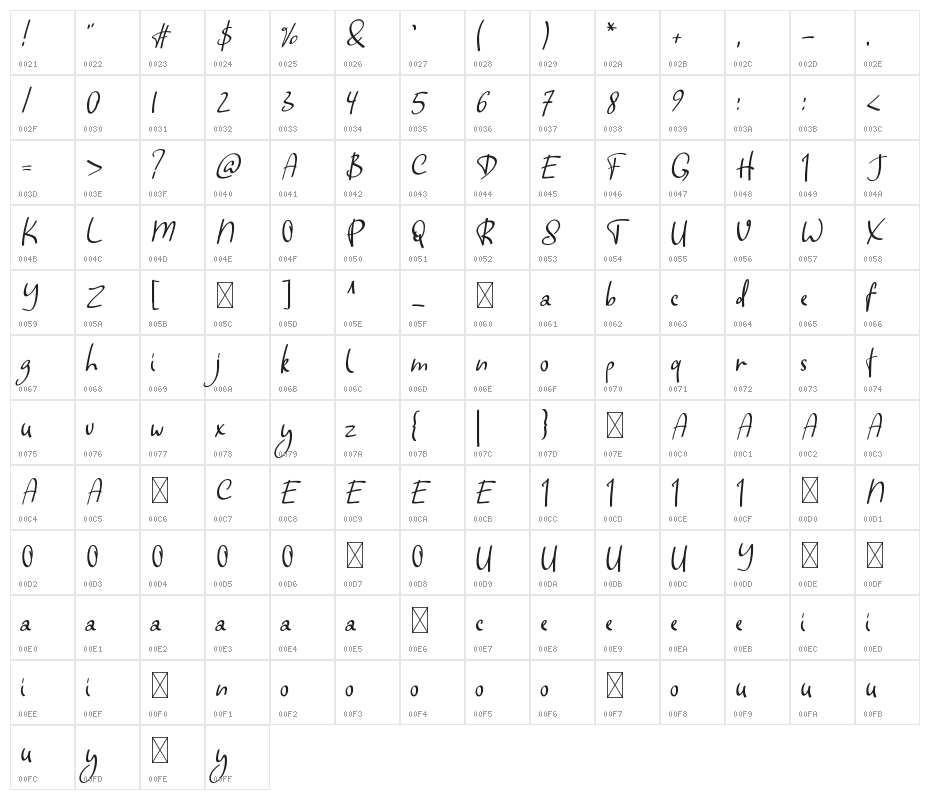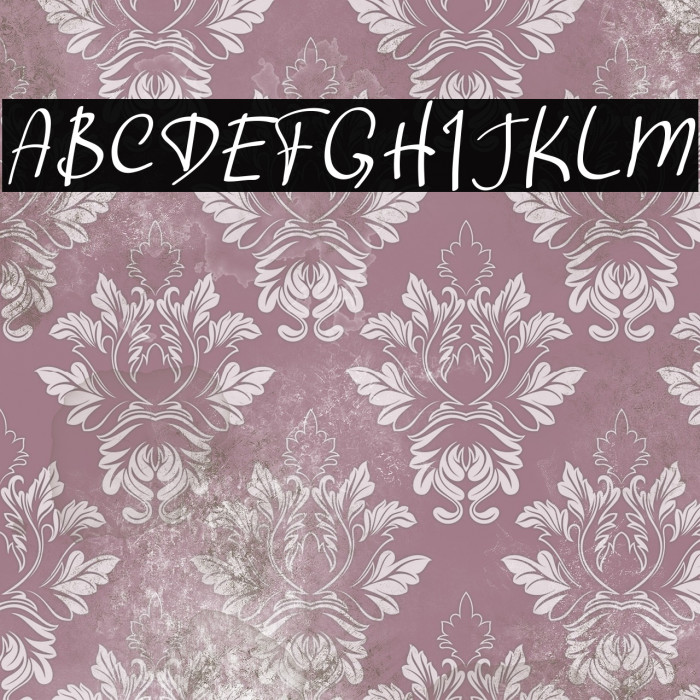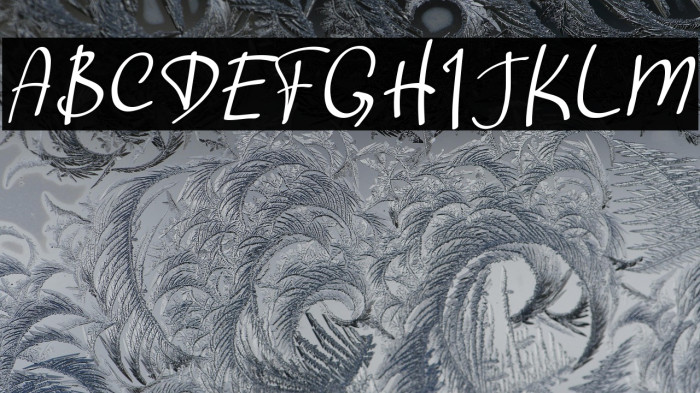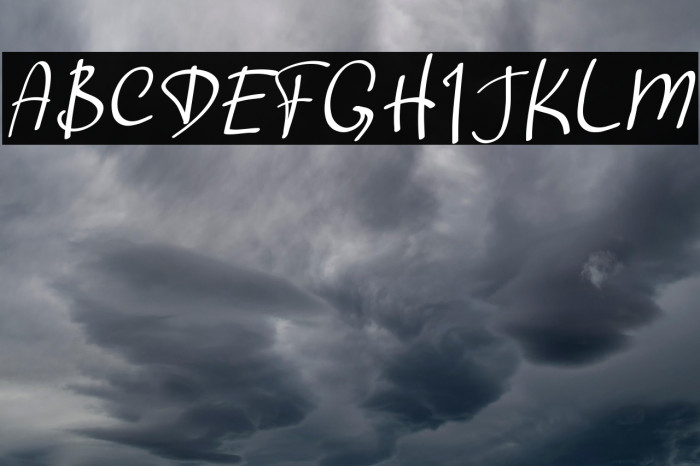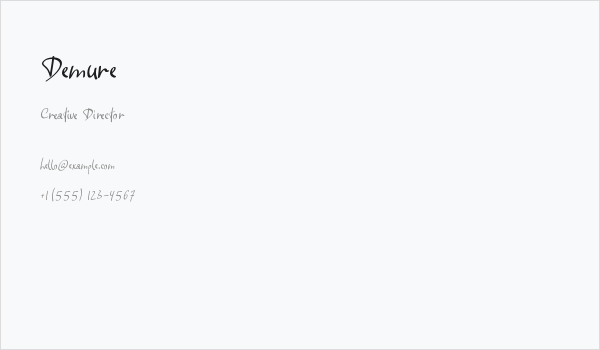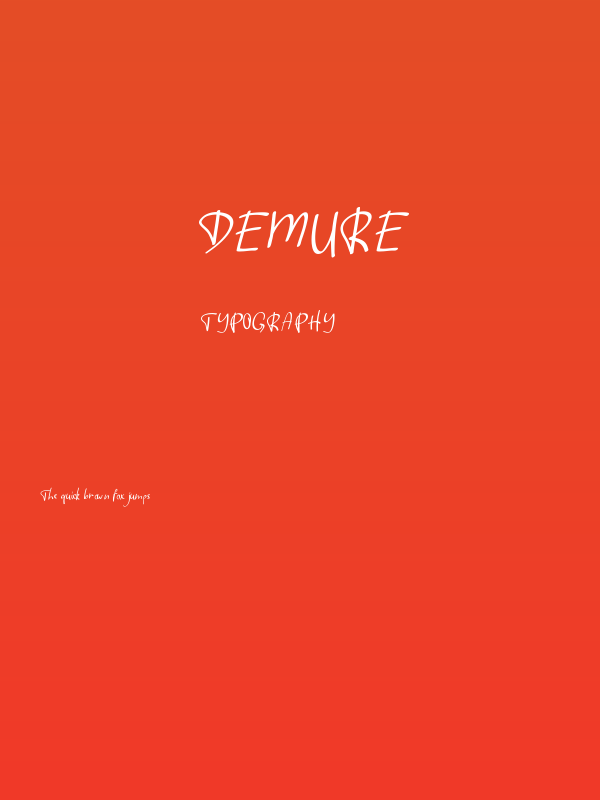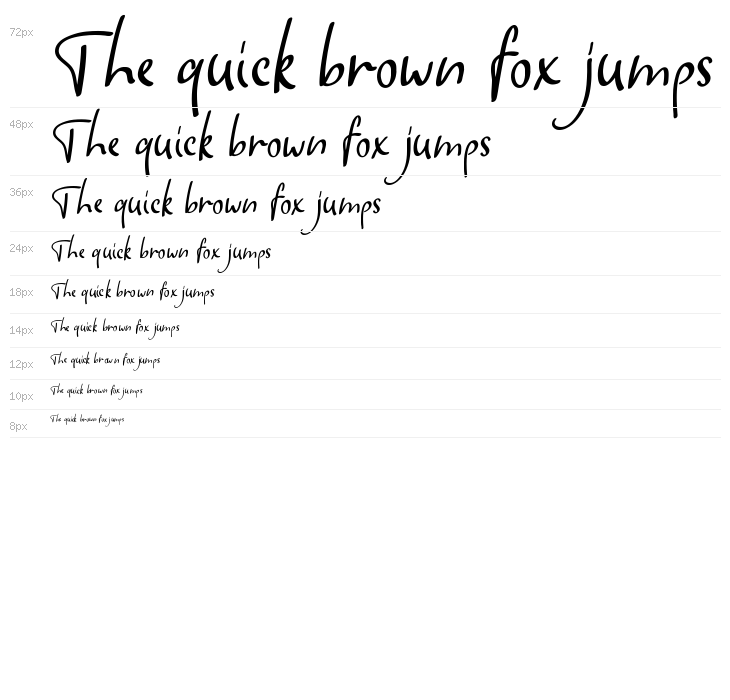
Demure Font
Demure Description
This font features a lively and expressive handwritten style, characterized by its fluid and dynamic strokes. The uppercase letters exhibit a playful yet elegant flair, with varying line thickness that adds a sense of movement and energy. The lowercase letters maintain this fluidity, offering a cohesive and harmonious appearance. Numbers and special characters are crafted with the same attention to detail, ensuring consistency across all glyphs. The font's overall design is both approachable and sophisticated, making it suitable for a variety of creative applications.
| Proposed Projects | Ideal for greeting cards, invitations, personal branding, and creative projects that require a personal touch. |